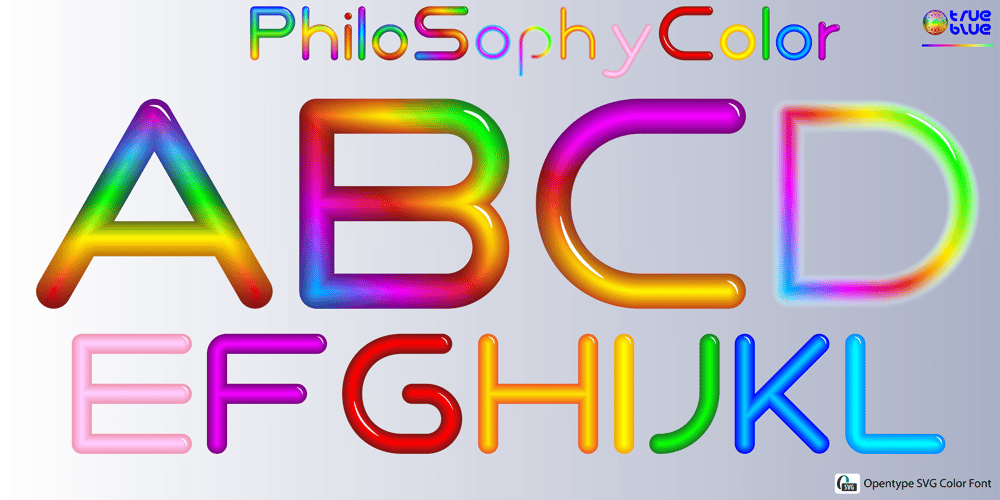
Philo Sophy Color
Philo Sophy Color font
Philo Sophy Color Font Family was designed by Gianni Marcolongo and published by TrueBlue. Philo Sophy Color contains 18 styles and family package options. Explore the chromatic world of PhiloSophy Color, a bold and vibrant font that redefines typography. With its extraordinary three-dimensional depth and vivid colors that command attention, this font is much more than just a collection of characters: it’s a sensory experience.Dive into a palette of bright and intense colors, giving text a solid appearance and a glossy finish reminiscent of freshly applied enamel. From subtle shades to bold contrasts, PhiloSophy Color offers a wide range of monochromatic and multicolored tones, ready to ignite your creativity and transform every project into a visual masterpiece.Ideal for graphic presentations that demand a touch of originality and immediate eye-catching appeal, PhiloSophy Color stands out for its ability to captivate attention and leave a lasting impression. Be bold, be memorable, be PhiloSophy Color.